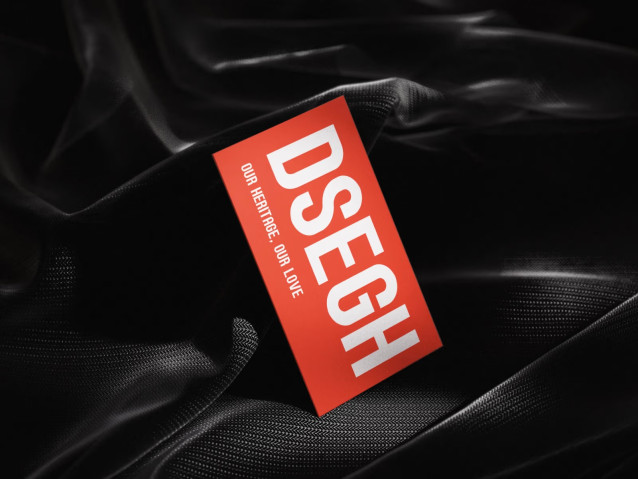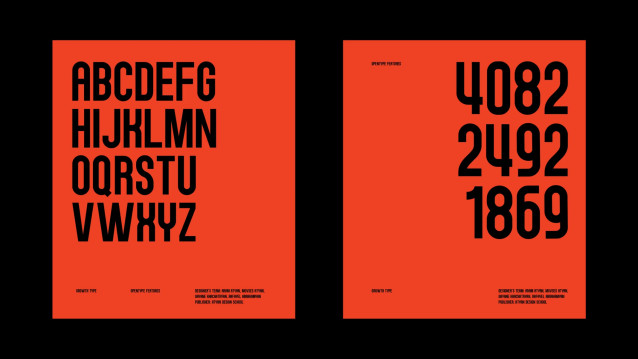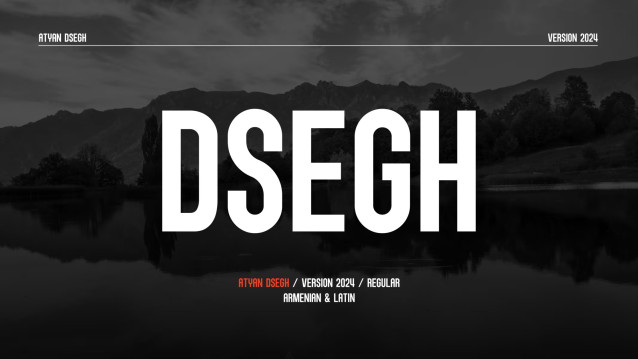
Atyan Dsegh Font
Atyan Dsegh is a commanding, all-caps typeface inspired by Dsegh, the historic village in Lori province and birthplace of legendary Armenian poet Hovhannes Tumanyan. With its balanced symmetry and authoritative strokes, this font commands attention in both digital interfaces and print applications. Deeply rooted in Armenian cultural heritage, Atyan Dsegh honors the natural rhythm of traditional Armenian letterforms while maintaining crisp punctuation without unnecessary spacing—resulting in a refined, contemporary aesthetic that makes a powerful statement in any design context.